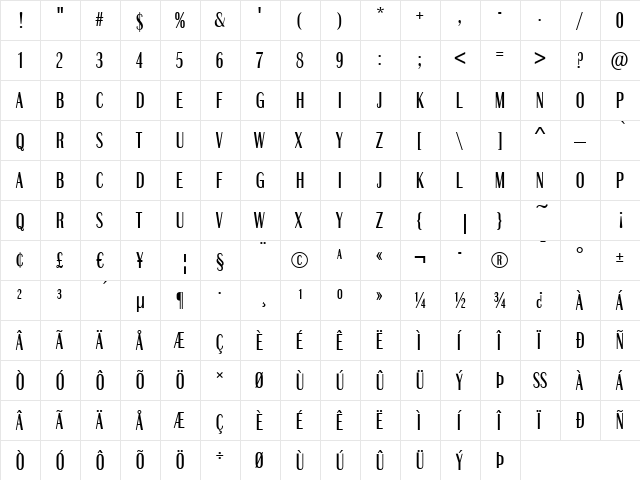
Bristol-Compressed-Medium Regular
Bristol-Compressed-Medium is a composed and adaptable typeface that performs quietly and consistently across a wide range of design contexts.